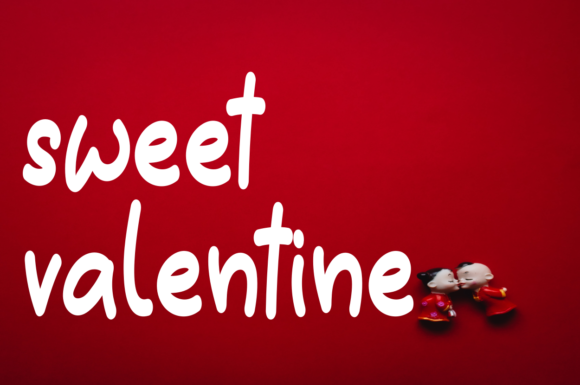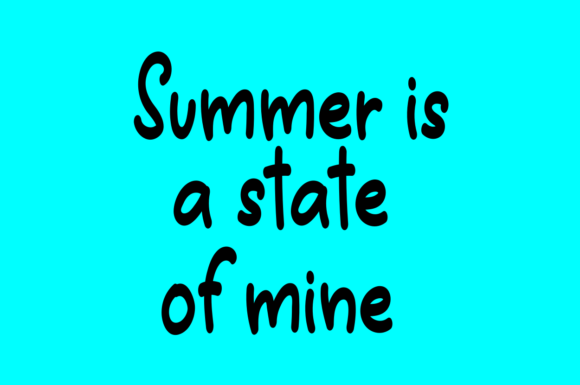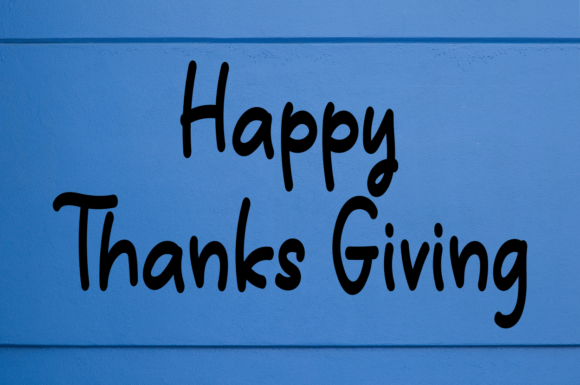
The Sweet Charm of Girly Chaca Font: A Designer’s Delight
I’ll never forget the time I was working on a whimsical craft project, pouring my heart into creating the perfect letterhead. The design was almost complete, but something was missing – a font that could capture the playful, hand-painted essence I had in mind. That’s when I stumbled upon Girly Chaca, a sweet and fun paint-brushed handwritten font that instantly won me over. In this article, I’ll share my experience with Girly Chaca, its unique features, and how to make the most of it in your designs.
An Honest Review of Girly Chaca
What I Love About Girly Chaca ✨
- ✅ Unique, hand-painted look: Girly Chaca boasts an original, brush-painted appearance that adds a touch of whimsy to any design.
- ✅ Versatility: This font is perfect for a wide range of crafty ideas, from letterheads and titles to stationery and more.
- ✅ Ease of use: Girly Chaca is easy to read and works well in various design contexts, making it a great addition to your font library.
While Girly Chaca is an excellent font, it’s not without its limitations. ⚠️ Some users may find that the font’s casual, hand-painted nature makes it less suitable for formal or professional designs. Additionally, the font’s legibility may be affected when used at very small sizes.
The Story Behind Girly Chaca
Girly Chaca was designed with the creative hobbyist in mind. Its creator, a passionate typographer, aimed to craft a font that would capture the playful, hand-painted essence of a bygone era. Inspired by vintage lettering and hand-painted signs, Girly Chaca was born – a font that’s equal parts sweet, fun, and versatile.
| Font Name | Girly Chaca Font |
| Author | Halo Whimsy Creative |
Q: What type of designs is Girly Chaca best suited for?
A: Girly Chaca is perfect for a wide range of crafty ideas, including letterheads, titles, stationery, and more.
Q: Is Girly Chaca available in different languages?
A: Girly Chaca may not support all languages, but it does include a range of characters and glyphs to help you create beautiful designs.
Q: Can I use Girly Chaca with other fonts in my design?
A: Absolutely! Girly Chaca pairs well with a variety of fonts. Feel free to experiment with different font combinations to find the perfect look for your design.